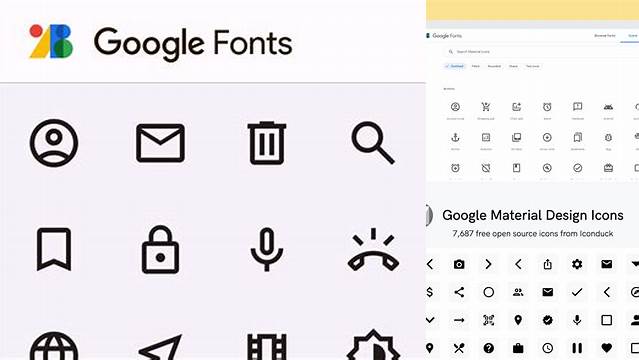
Google Fonts Material Icons Sharp: A Deep Dive
Understanding Google Fonts Material Icons Sharp
Hey guys, let's dive into the awesome world of Google Fonts Material Icons Sharp! If you're a web developer, designer, or anyone tinkering with digital interfaces, you've probably stumbled upon Google Fonts. They're a fantastic resource for adding beautiful typography to your projects. But did you know they also offer a rich library of icons? Specifically, the Material Icons set is incredibly popular, and within that, the Sharp variant offers a distinct visual style. These aren't just any icons; they're designed with a clean, modern aesthetic that aligns perfectly with Google's Material Design principles. The 'Sharp' designation means these icons feature more defined edges and a crisper, more geometric look compared to their filled or outlined counterparts. This makes them stand out and can add a sophisticated touch to your website or application. We're talking about a massive collection here, guys, covering everything from basic navigation elements like home and settings to more specific icons for social media, finance, and even obscure actions you might need. The beauty of using a library like this is the consistency. All the icons are designed to work together, ensuring a cohesive look and feel across your entire project. Plus, they're easily scalable and customizable, meaning you can tweak their size, color, and even rotate them to fit your exact design needs. So, whether you're building a brand new app or just looking to spruce up an existing website, understanding the ins and outs of Google Fonts Material Icons Sharp is going to be super beneficial. It's all about making your digital creations look polished and professional without a ton of extra effort. Let's get into the nitty-gritty of how to use them, explore their benefits, and see why they're a go-to choice for so many.
Why Choose the Sharp Variant of Material Icons?
So, why should you specifically opt for the Material Icons Sharp variant from Google Fonts? Well, it all comes down to aesthetics and the specific vibe you want to impart to your project. While the standard Material Icons are great – offering filled, outlined, and sometimes rounded versions – the Sharp icons bring a distinct personality. Think of them as the more angular, defined cousins in the family. If your design language leans towards modern, minimalist, or even a slightly futuristic feel, the sharp edges of these icons can really make them pop. They possess a certain boldness and clarity that can be incredibly effective, especially in smaller sizes where other icon styles might start to lose their definition. Imagine a user interface where every element needs to be instantly recognizable. The sharp, crisp lines of these icons ensure that even a tiny gear icon for settings or a magnifying glass for search is immediately understood. It's about reducing cognitive load for your users, guys. A clean, sharp icon is easier to process. Furthermore, the 'Sharp' variant often feels more grounded and structural, which can be a great complement to sans-serif typography and flat design elements. If you're aiming for a sophisticated, professional look that feels cutting-edge, then diving into the Sharp collection is definitely the way to go. It’s not just about having icons; it's about choosing the right icons that speak the same design language as the rest of your interface. They provide a subtle yet powerful way to differentiate your design and ensure it looks intentional and well-crafted. This is especially true when you consider the sheer variety available within the Sharp set, meaning you’re not compromising on functionality for style. You get both!
Exploring the Vast Icon Library in Material Icons Sharp
One of the most compelling reasons to get cozy with Google Fonts Material Icons Sharp is the sheer breadth of the library itself. Seriously, guys, it's not an exaggeration to say you can find an icon for almost anything you can think of. Google has put a ton of effort into creating a comprehensive set that caters to a wide array of needs, whether you're designing a complex enterprise application, a simple personal blog, or anything in between. We're talking about core navigation icons like home, menu, arrow_back, and search. But it goes so much deeper than that. Need icons for social media? They've got you covered with popular platforms. Dealing with financial data? There are icons for currency, charts, and transactions. Working on a project involving health and fitness? You'll find representations for hearts, running, and nutrition. Even more abstract concepts like lightbulb for ideas, warning for alerts, or check_circle for success are readily available. The consistency across this vast collection is a huge plus. Because they all adhere to the Material Design guidelines and share the 'Sharp' aesthetic, they integrate seamlessly, ensuring your interface doesn't look like a jumbled mess of different icon styles. This uniformity is key to creating a professional and user-friendly experience. When users encounter a consistent visual language, they feel more comfortable and can navigate your interface more intuitively. So, before you go hunting for obscure icon packs, take a good, hard look at what the Material Icons Sharp library offers. You might just find everything you need, presented in a stylish and cohesive manner, ready to be dropped right into your design. It’s a treasure trove, really.
Getting Started with Material Icons Sharp on Your Website
Implementing Material Icons Sharp with CSS Classes
Now that you've got the basic idea, let's talk about mastering Material Icons Sharp implementation using CSS classes. This is where the real power and flexibility come into play, guys. While just dropping the icon name into a span works, leveraging CSS gives you much more control over their appearance and behavior. Remember that material-icons-sharp class we mentioned? That's your gateway. When you use the font-based approach, Google's CDN automatically applies a set of base styles when it detects that class. However, you can build upon this. For instance, you can create your own custom classes to define specific sizes, colors, or even rotations. Imagine you have a set of action buttons that all need a specific blue icon. Instead of inline styles, you could create a class like .icon-action-blue and apply it alongside material-icons-sharp. Your CSS might look something like this: .icon-action-blue { color: #3498db; font-size: 20px; }. This keeps your HTML clean and makes your styles highly maintainable. It's all about organization! Furthermore, CSS allows you to implement hover effects or other dynamic behaviors. You could make an icon slightly larger or change its color when a user hovers over it, adding an interactive element to your UI. Think about accessibility too. You can use CSS to ensure sufficient contrast between your icons and their background, making your design more inclusive. By strategically using and extending the material-icons-sharp class, you can ensure your icons not only look great but also fit perfectly within your design system, making your website or app feel polished and professional. It’s the smarter way to work with these icons, ensuring consistency and ease of updates across your entire project. Trust me, guys, mastering this will save you loads of time and make your designs sing.
####### Customizing Icon Size and Color with CSS
Let's get down to the nitty-gritty of making Material Icons Sharp truly yours by customizing their size and color using CSS. This is arguably the most common and impactful customization you'll perform, and luckily, it's super simple. When you embed the Material Icons Sharp font, each icon essentially behaves like a character. This means you can use standard CSS properties to control its appearance. To change the size, you simply use the font-size property. For example, if you want your home icon to be a prominent feature, you could apply a style like .my-large-icon { font-size: 48px; } and then use that class on your icon element: <span class="material-icons-sharp my-large-icon">home</span>. You can use px, em, rem, or any other valid CSS unit to get the exact scale you need, which is perfect for responsive designs where you might want icons to scale with the text or viewport. Now, for color, it's just as easy. The color property is your best friend here. Want your warning icon to be a bold red? Easy: .warning-icon { color: #e74c3c; }. You can use hex codes, RGB values, HSL, or even named colors like 'blue' or 'green'. This allows you to seamlessly integrate the icons into your brand's color palette. The beauty of this approach is that it’s non-destructive; you’re not altering the icon itself, just how it’s displayed. This means you can reuse the same sharp icon in multiple places with different sizes and colors without any hassle. It’s this kind of granular control that makes Google Fonts and their icon sets so powerful for designers and developers alike. So go ahead, experiment with different sizes and colors to make those sharp icons really pop and serve their purpose effectively within your layout!
######## Understanding Font Weight and Ligatures for Sharp Icons
When you're working with Material Icons Sharp, there are a couple of other CSS properties that can subtly influence their appearance: font weight and ligatures. While icons might seem straightforward, understanding these nuances can help you achieve a more polished look. Let's talk about font weight first. For most font-based icons, including Material Icons, the default weight usually renders them nicely. However, sometimes you might want to make an icon appear bolder or lighter to match specific text styles or design requirements. You can achieve this using the font-weight property. For example, you could try font-weight: 700; to make an icon appear bolder, or font-weight: 300; for a lighter feel. It’s worth experimenting, as the visual impact can vary depending on the specific icon. Now, ligatures are a bit more interesting. Ligatures are special character combinations that are rendered as a single glyph. In the context of icon fonts, this often means that typing a specific word or code will automatically render as an icon. For Material Icons, you might find that typing home within the correct element and class is the ligature that renders the home icon. The font-family declaration, often set implicitly by the material-icons-sharp class, ensures the browser knows to interpret these specific character sequences as icons. While you don't typically control ligatures directly with CSS in the same way you control size or color, understanding that they're at play helps explain how typing an icon name results in a visual symbol. It’s the magic behind the scenes! So, while font-size and color are your primary tools, keep font-weight in mind for fine-tuning boldness, and appreciate the ligature system that makes using these sharp icons so intuitive in the first place. It’s all part of making your design look sharp, guys!
######### Exploring Different Icon Styles within Material Icons
While we're focusing on Material Icons Sharp, it's super valuable, guys, to understand that this isn't the only style Google offers within its Material Icons family. Knowing the alternatives helps you make a more informed decision about which icon style best suits your project's overall aesthetic. Besides Sharp, you'll commonly find these other key styles:
- Filled: These are your classic, solid icons. They have a distinct, bold presence and are often used for primary actions or to draw attention. Think of them as the default, no-nonsense option.
- Outlined: These icons feature a border or outline, giving them a lighter, more airy feel compared to the filled versions. They can be great for secondary actions or when you want a less dominant visual element.
- Rounded: As the name suggests, these icons have softer, rounded corners. This style often conveys a friendlier, more approachable, or even playful tone. It's excellent for interfaces aiming for a warmer feel.
############ Optimizing Icon Performance with Google Fonts
Let's talk performance, guys! When you're using Material Icons Sharp via Google Fonts, optimization is key to keeping your website zippy. Google's infrastructure is already pretty optimized, serving assets via their global CDN, which significantly reduces latency. However, there are still a few things you can do to ensure these icons load as efficiently as possible. First off, ensure you're only loading the icon family you actually need. If you're only using the 'Sharp' variant, make sure your link tag specifically requests Material+Icons+Sharp. Avoid loading the entire Material Icons font family if you're only using a subset. Secondly, consider the `rel=